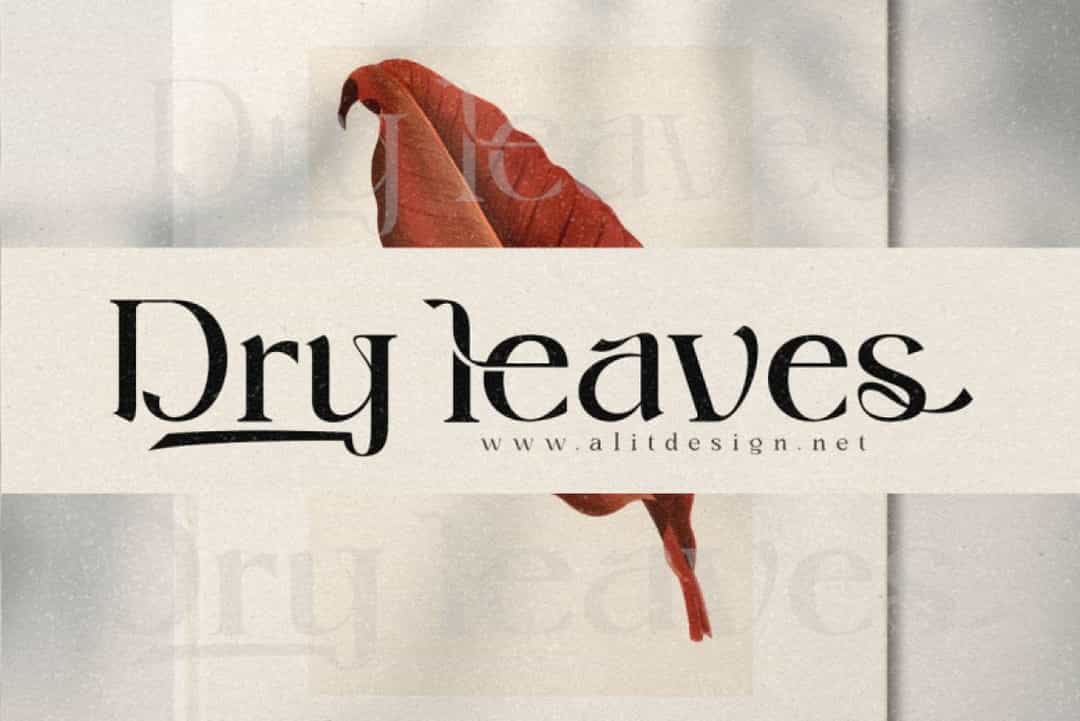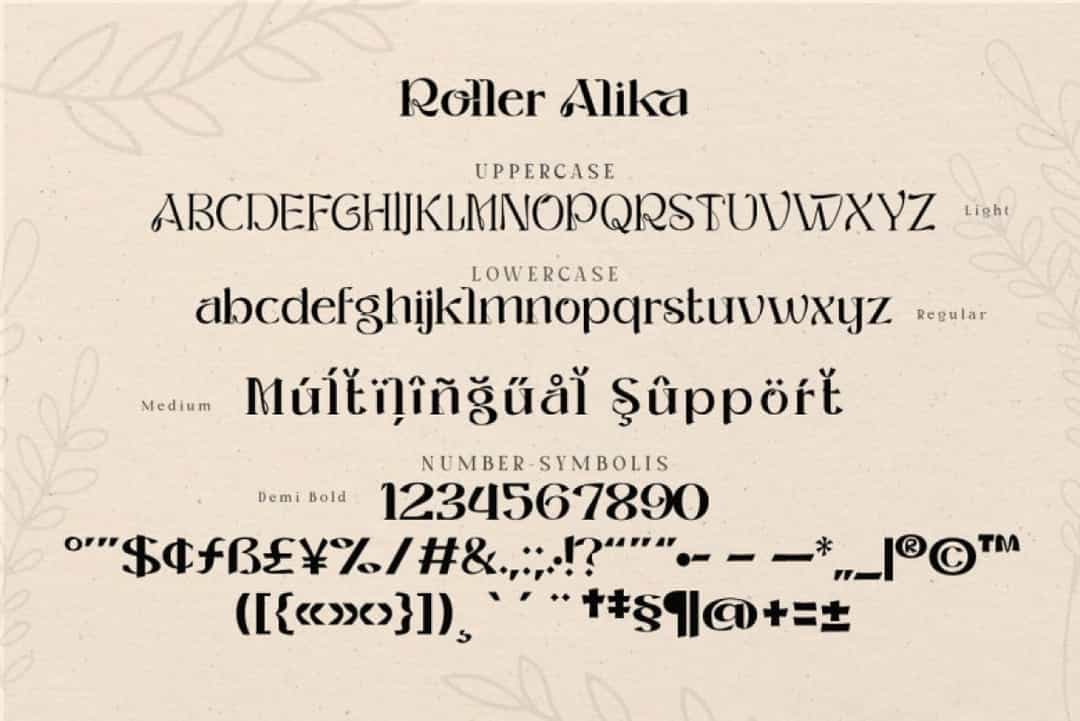
Roller Alika font is a modern serif font with Swash alternate and distortion styles, created from wedding font requirements. Elegant in appearance and available from thin to demi bold families.